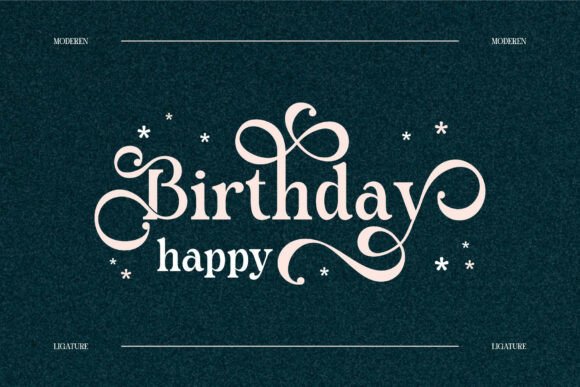
The Birth of Elegance: A Deep Dive into the Birthday Font
I’ll never forget the time I was working on a branding project for a luxury beauty client. I had spent hours agonizing over the perfect logo design, but something was missing. The typography just wasn’t quite right. I scoured the internet for the perfect font, but nothing seemed to fit the bill. That was until I stumbled upon the Birthday font. ✨
Its elegant serif design and minimalist vibe instantly caught my eye. I knew right then and there that it was the perfect fit for my client’s brand. But what really sets the Birthday font apart is its versatility. Whether you’re designing templates, brochures, videos, or logos, this font is sure to impress.
• ✨ Elegant serif design that’s perfect for luxury brands
• 🎉 Extensive OpenType features, including glyphs and stylistic alternates
While the Birthday font is an excellent choice for many design projects, there are a few things to keep in mind. 🤔
• ⚠️ Some users may find the font a bit too thin for certain design applications
• ⚠️ Limited availability of condensed or italic styles
The Designer Inspiration Behind Birthday Font
The Birthday font was inspired by the minimalist logo design movement of the 1980s. Its creator, a renowned type designer, sought to create a font that was both elegant and versatile. The result is a font that’s perfect for a wide range of design applications, from luxury branding to digital advertising.
Q: What is the Birthday font?
A: The Birthday font is an elegant serif typeface inspired by the famous minimalist logo design movement.
Q: What is the Birthday font used for?
A: The Birthday font is perfect for designing templates, brochures, videos, advertising branding, logos, invitations, layout design, elegant crafting, beauty design, and more.